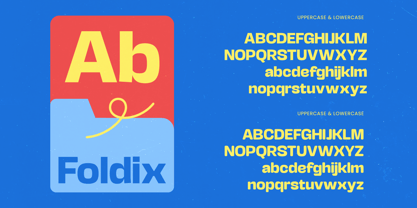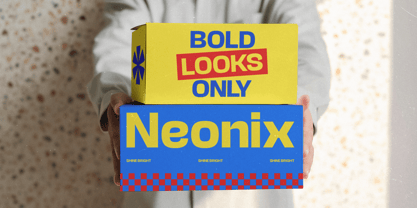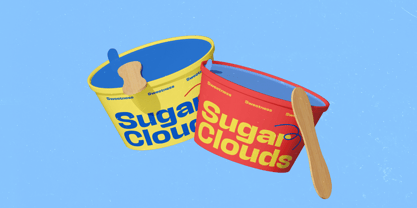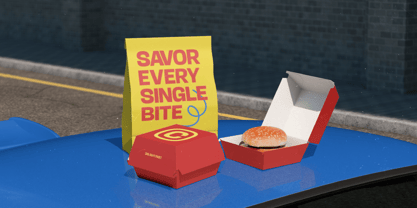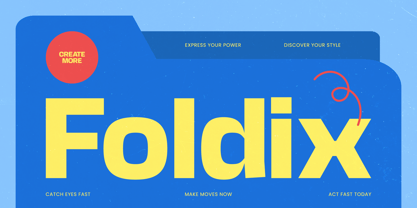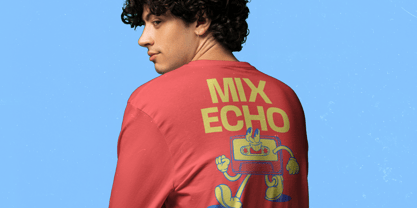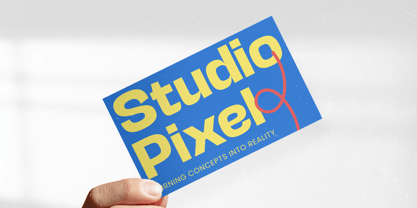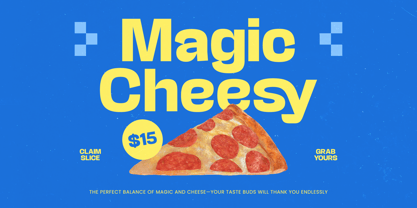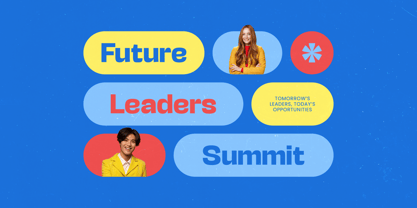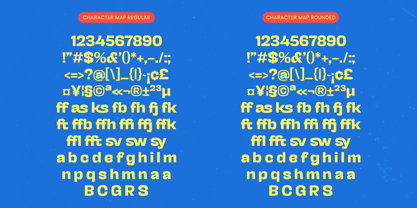
Foldix Regular
The Foldix Regular Font Family was designed by Heru Utama Putra and published by Timelesstype Studio. Foldix Regular contains 2 styles and family package options. More about this family
Foldix is more than just a typeface; it is a bold statement of clarity and confidence designed to elevate your visual storytelling to new heights. This font captures the essence of contemporary minimalism, offering a sturdy yet approachable presence that commands attention while remaining incredibly easy to read.
Inspired by the clean lines of geometric efficiency and structural simplicity, the design reflects a perfect balance between architectural integrity and fluid, friendly motion. It channels the energy of modern creative workspaces, creating a visual atmosphere that feels both professionally polished and vibrantly alive.
Exuding a sense of refined power, this modern sans display is engineered for maximum branding impact and clear communication in any medium. Its thick strokes and optional rounded terminals make it an essential editorial font for creators seeking high-impact typography that bridges the gap between functional utility and expressive art.